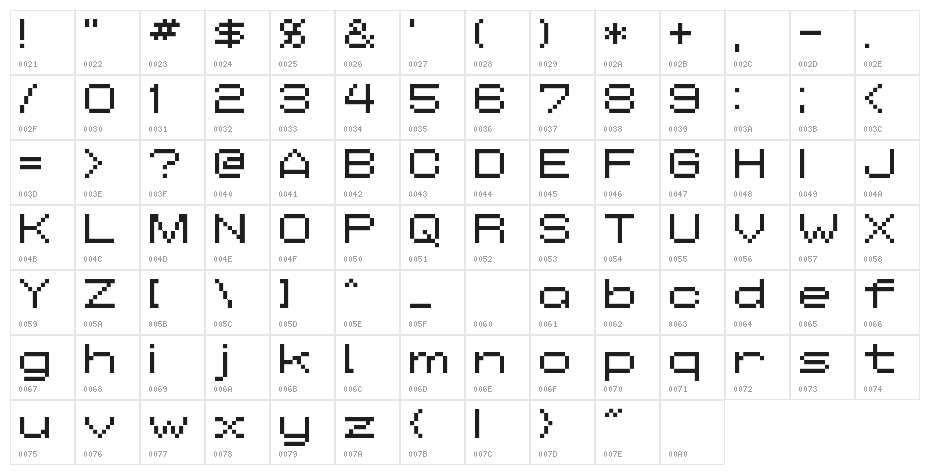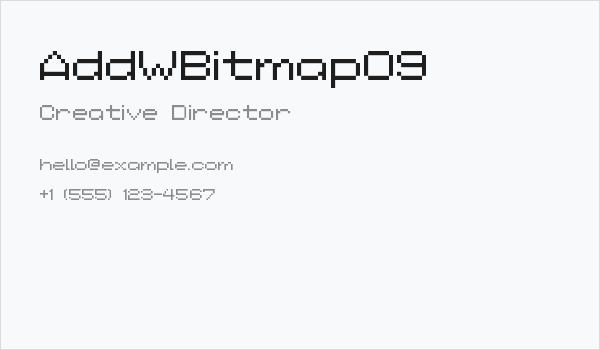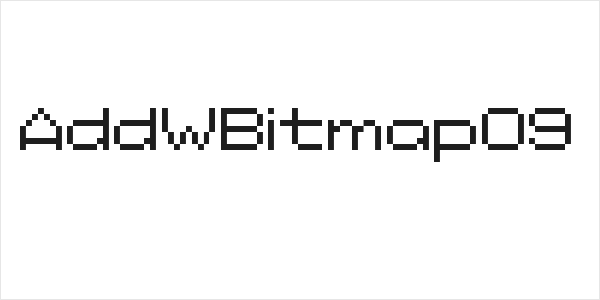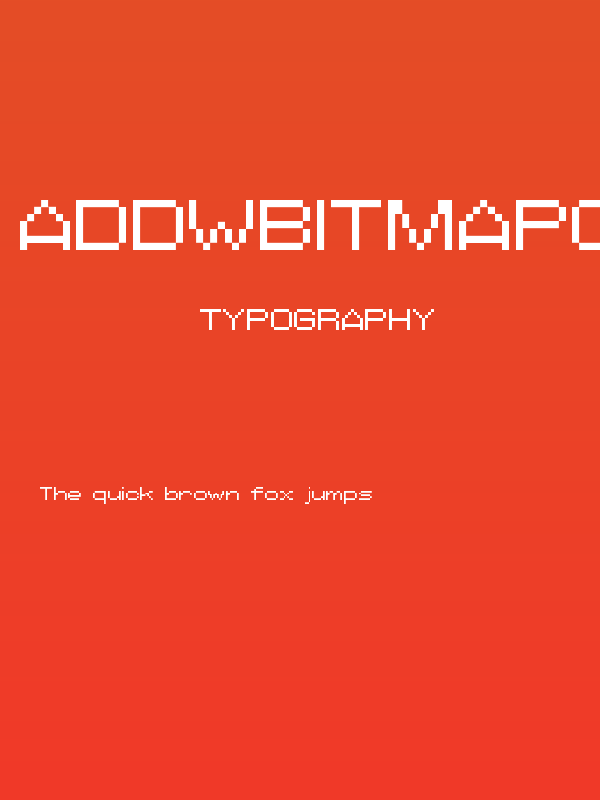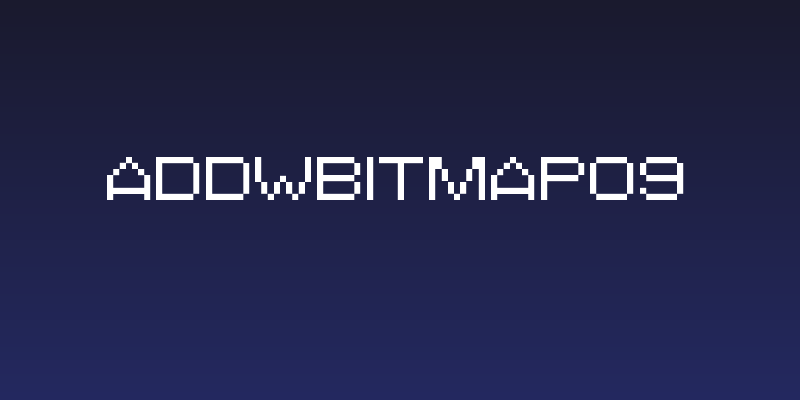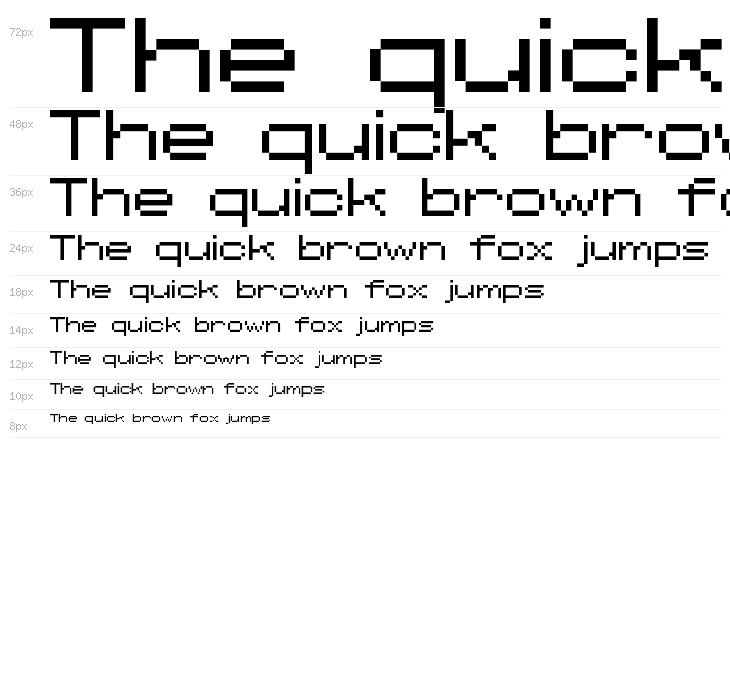
AddWBitmap09 Font
AddWBitmap09 Description
This font features a pixelated, blocky design reminiscent of early digital or video game typography. Each character is constructed with a grid-like precision, giving it a distinctly retro and digital aesthetic. The uppercase and lowercase letters maintain consistent height and width, emphasizing uniformity and clarity. Numbers and special characters follow the same pixelated style, ensuring a cohesive look across all text. The font's simplicity and geometric nature make it highly legible, even at smaller sizes, while its nostalgic feel adds a unique charm to any design.
| Overall Style | Retro, Digital |
| Use Case | Headlines, Logos, Digital Art |
| Proposed Projects | Ideal for retro video game designs, digital art projects, tech-themed posters, and any project seeking a nostalgic digital aesthetic. |